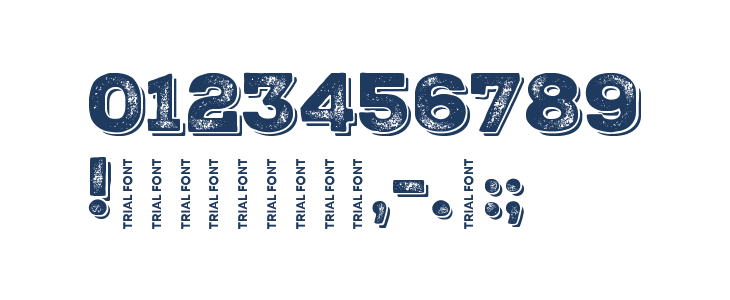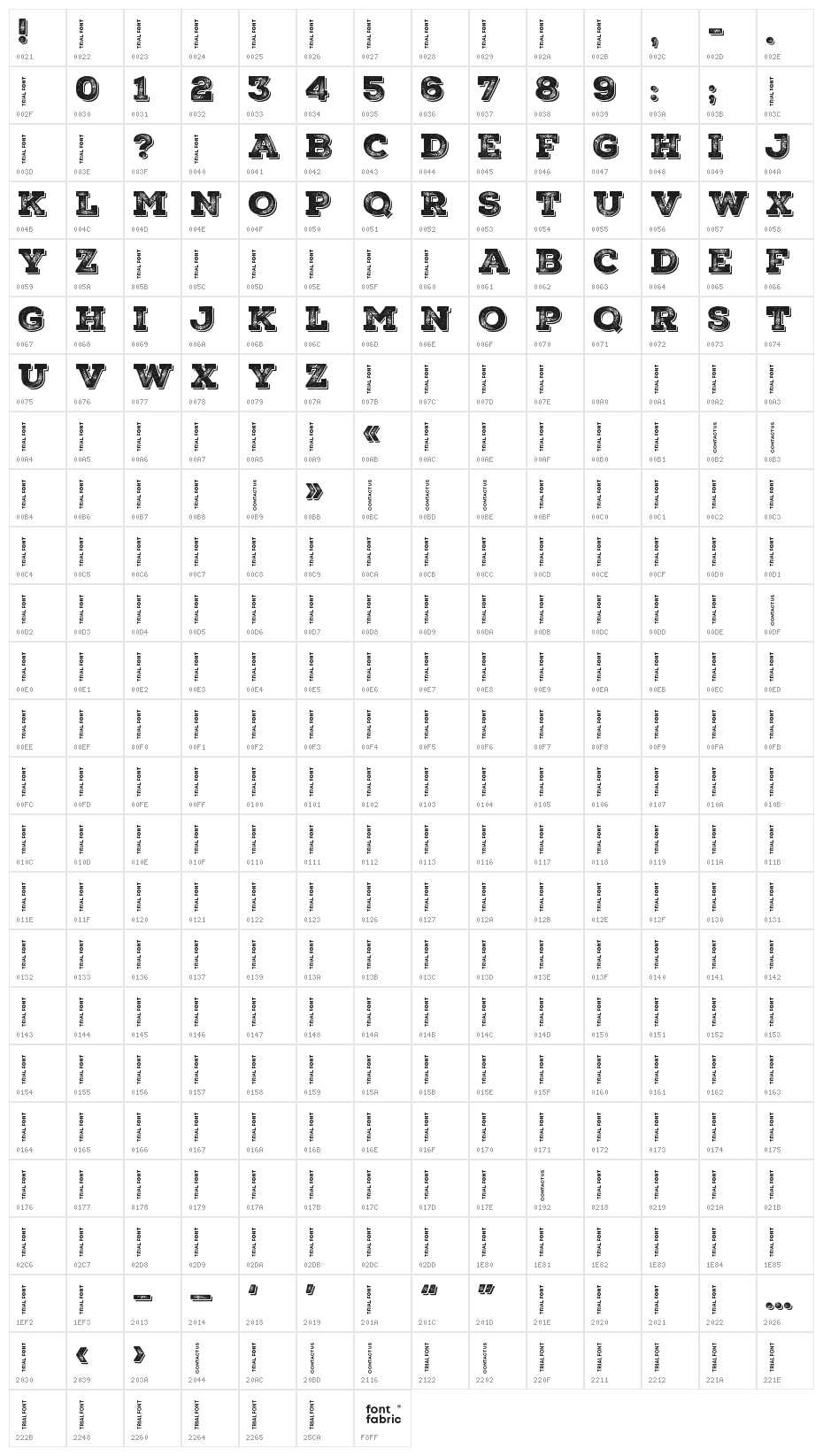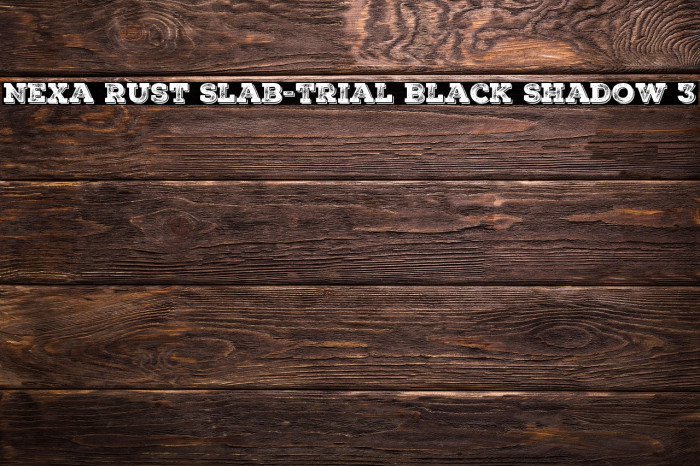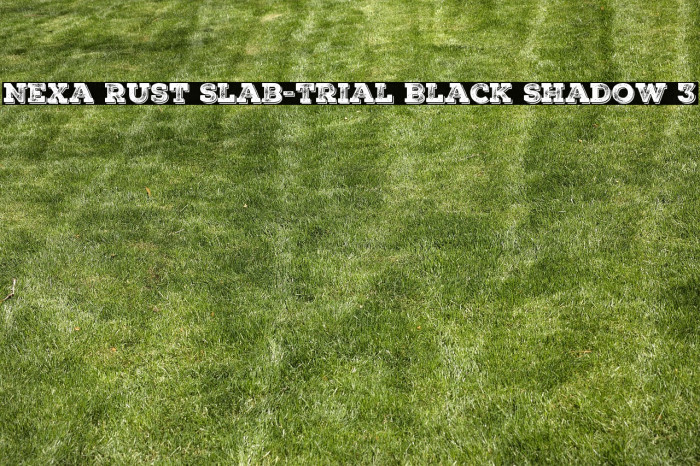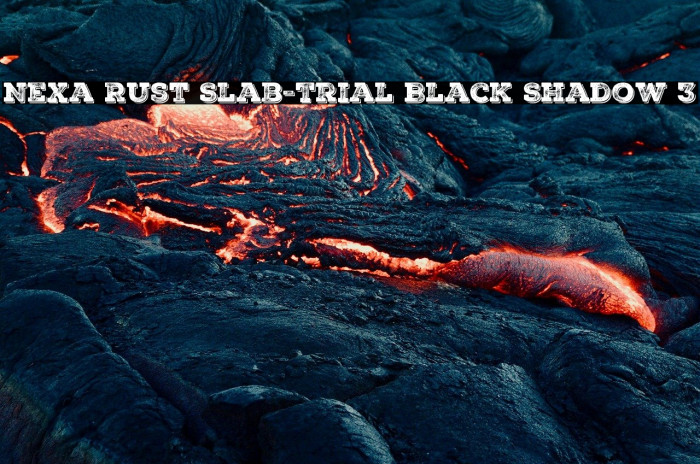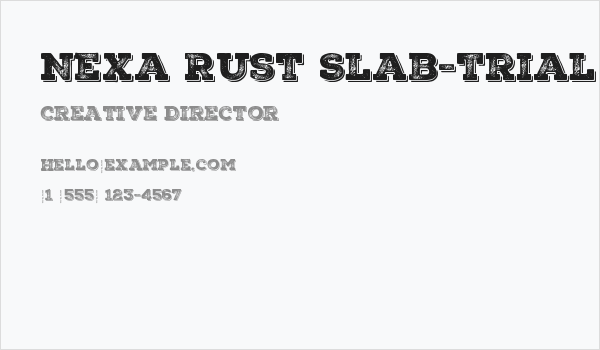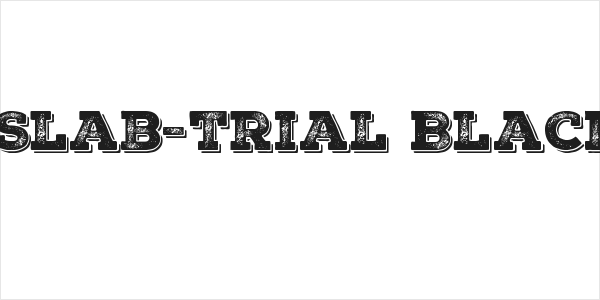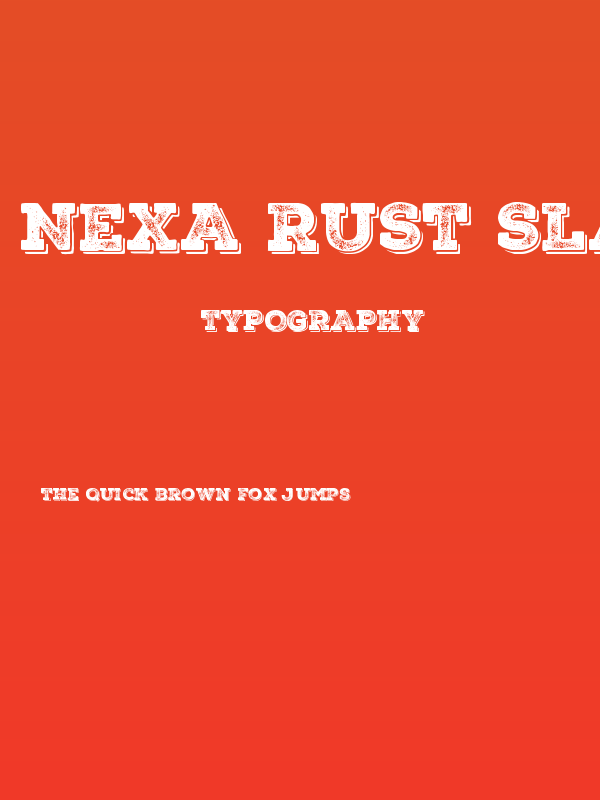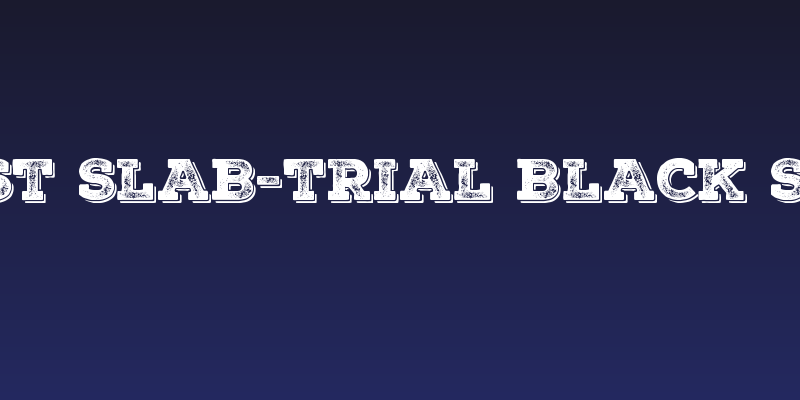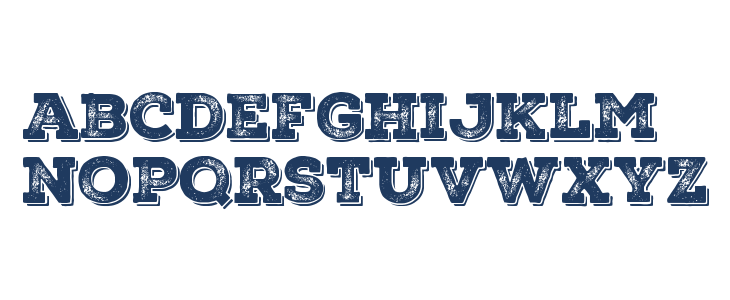
Nexa Rust Slab-Trial Black Shadow 3 Font
Nexa Rust Slab-Trial Black Shadow 3 Description
This font features a bold, rugged slab serif style with a distressed texture that gives it a vintage, industrial feel. The characters are thick and sturdy, with a shadow effect that adds depth and dimension. The uppercase letters are prominent and commanding, while the numbers and special characters maintain the same bold presence. The texture within each character adds a unique, worn look, making it ideal for projects that require a touch of rustic charm or a retro aesthetic. Its strong visual impact makes it suitable for headlines, posters, and branding that aim to convey strength and authenticity.
| Proposed Projects | Ideal for vintage-themed posters, branding, logos, and headlines that require a strong, rustic aesthetic. |